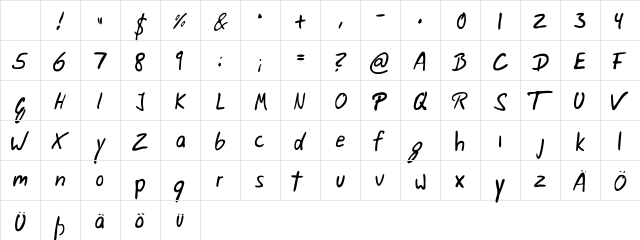
Complete Weigl Regular glyph index. Displaying only characters natively supported by Weigl Regular font.
Weigl is a composed and adaptable typeface that performs quietly and consistently across a wide range of design contexts.
Who designed the Weigl Regular font?
This font was published by Thomas Weigl. Check the technical specs section for copyright and designer details.